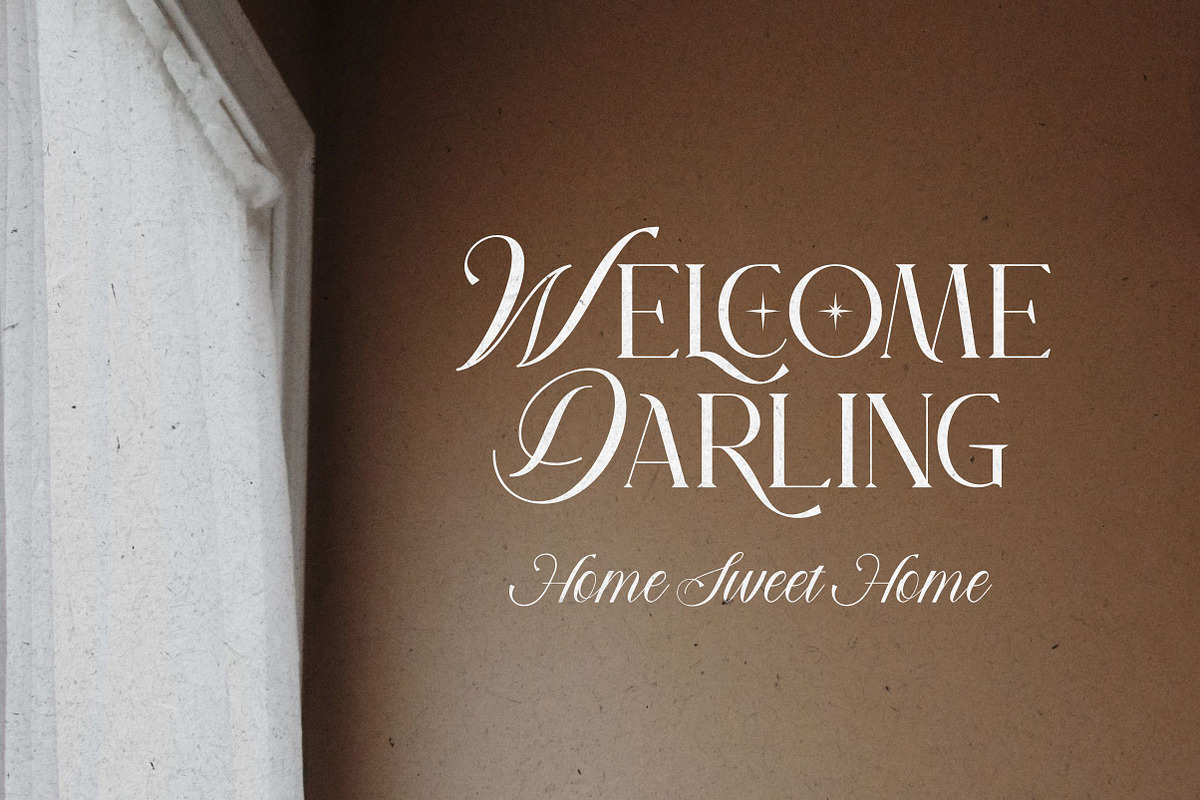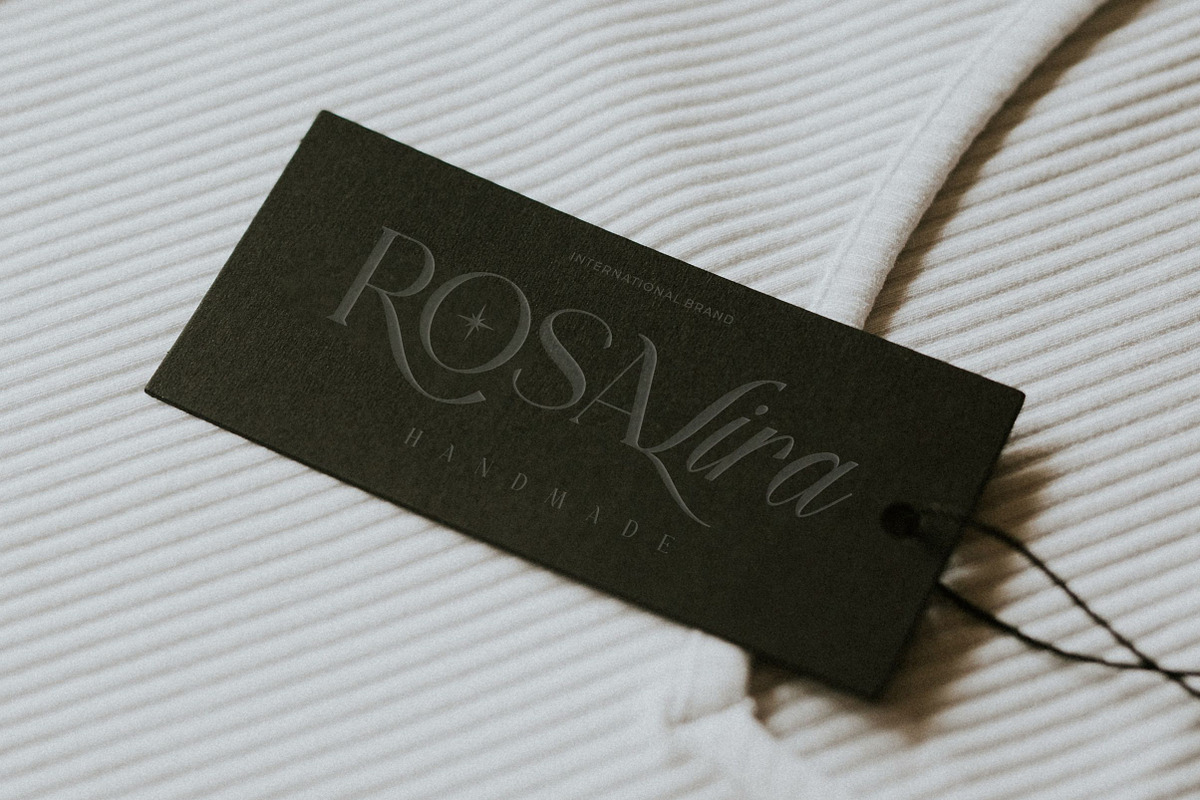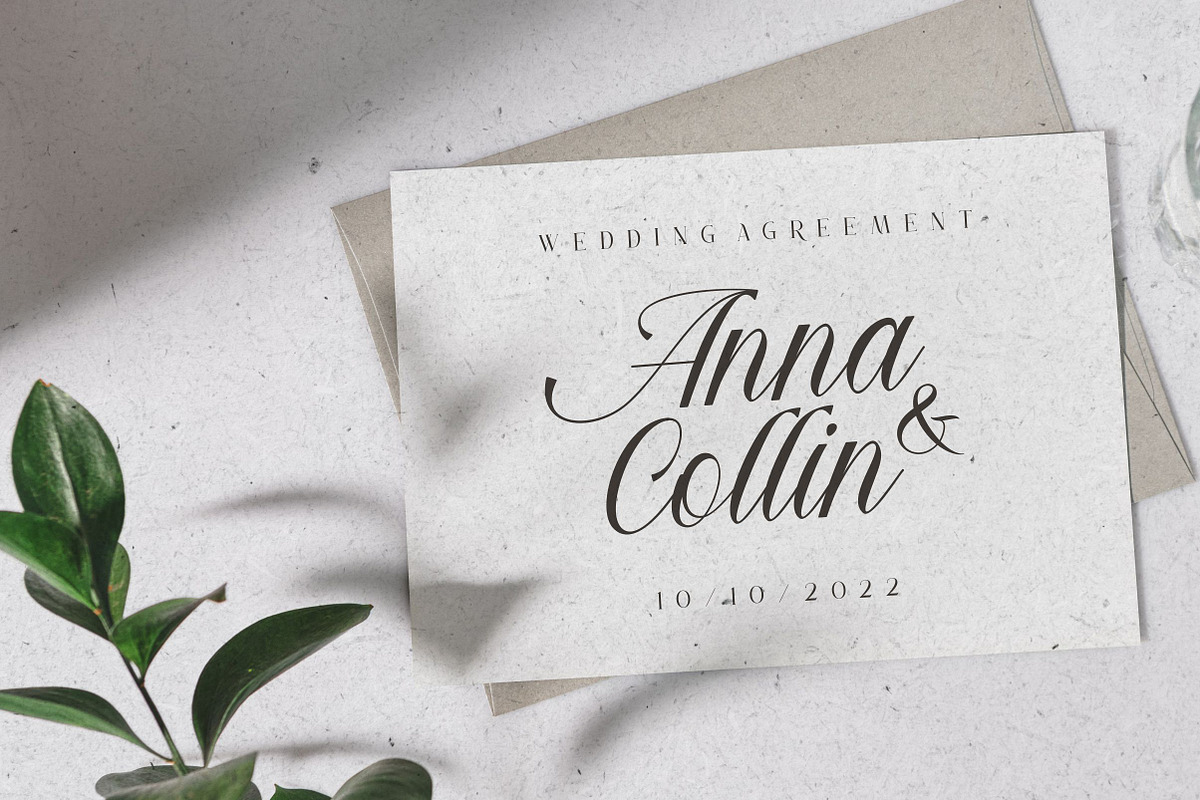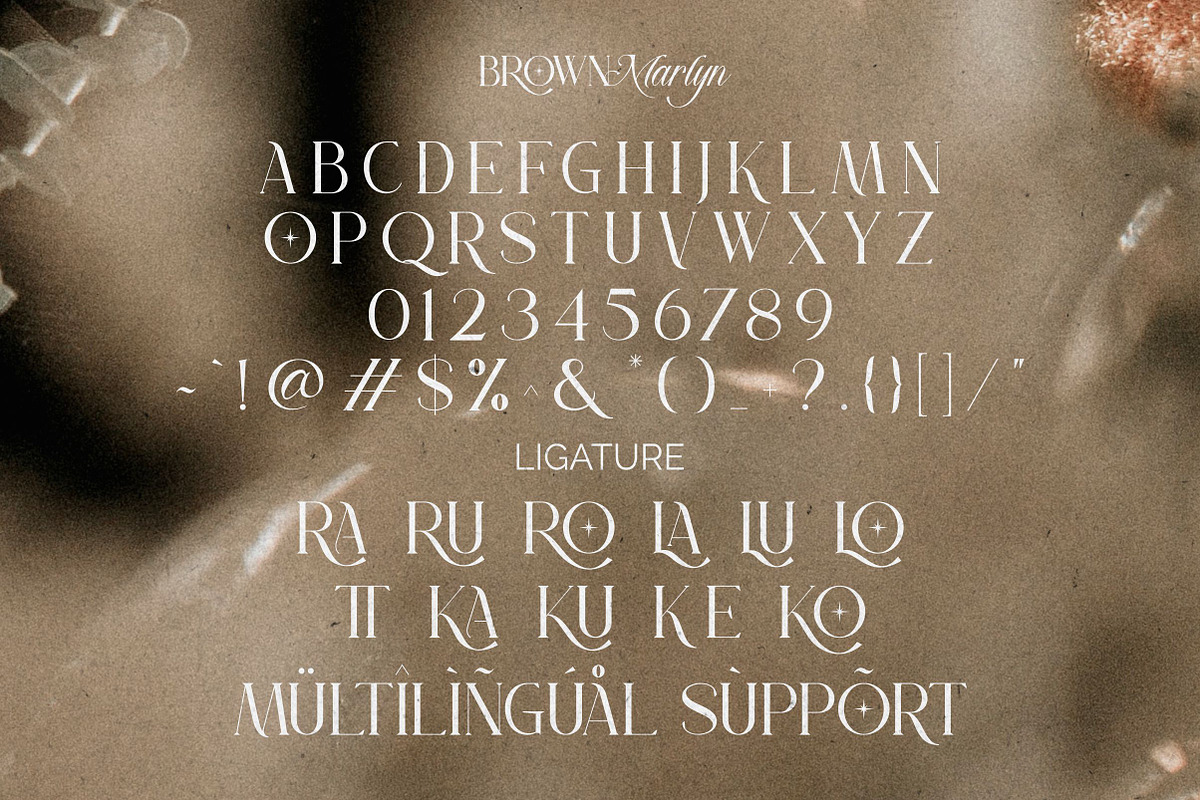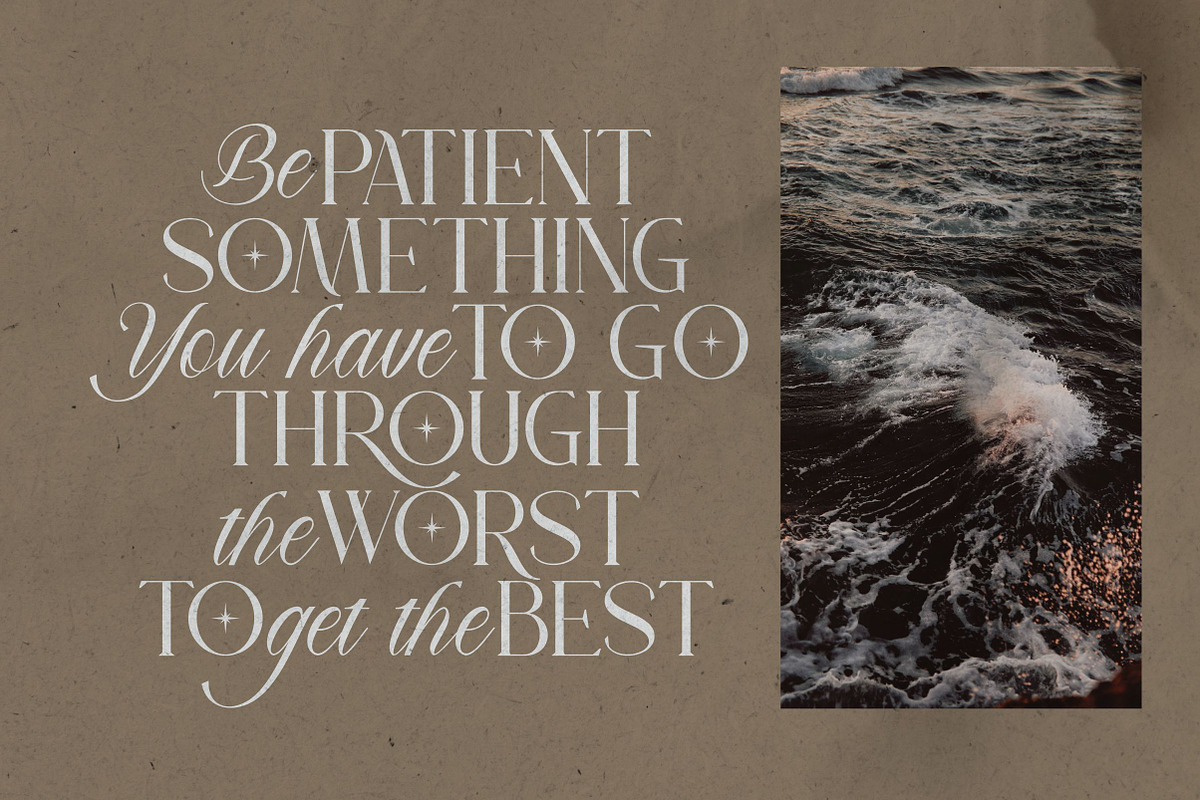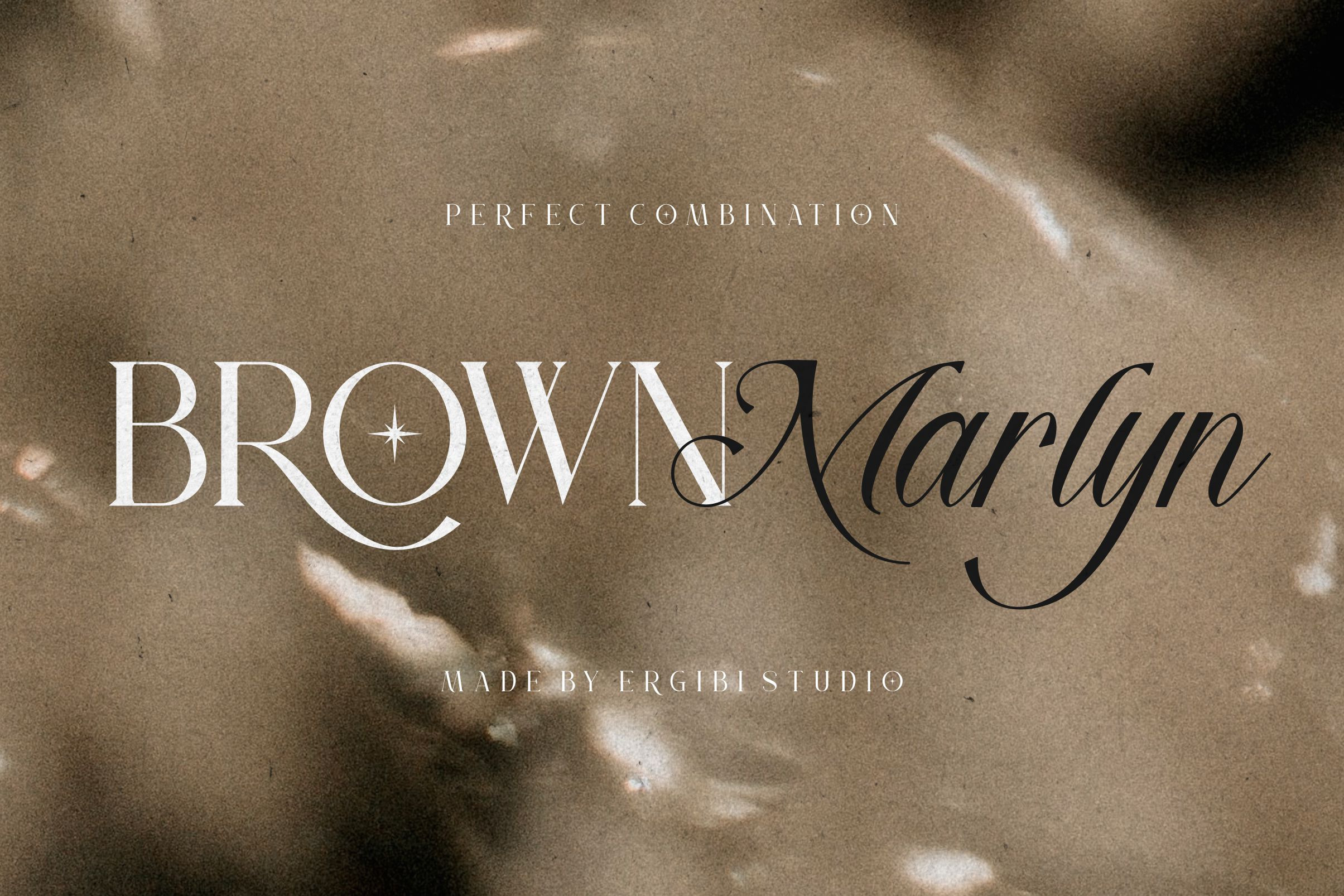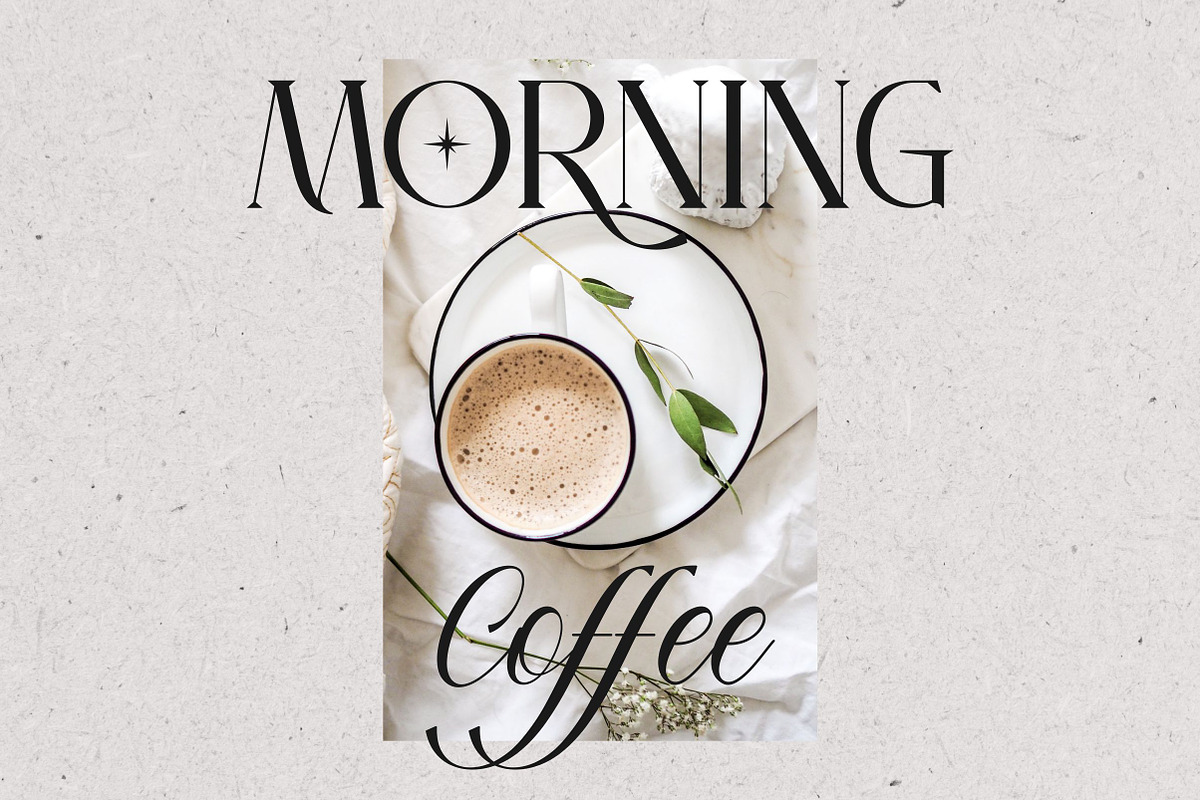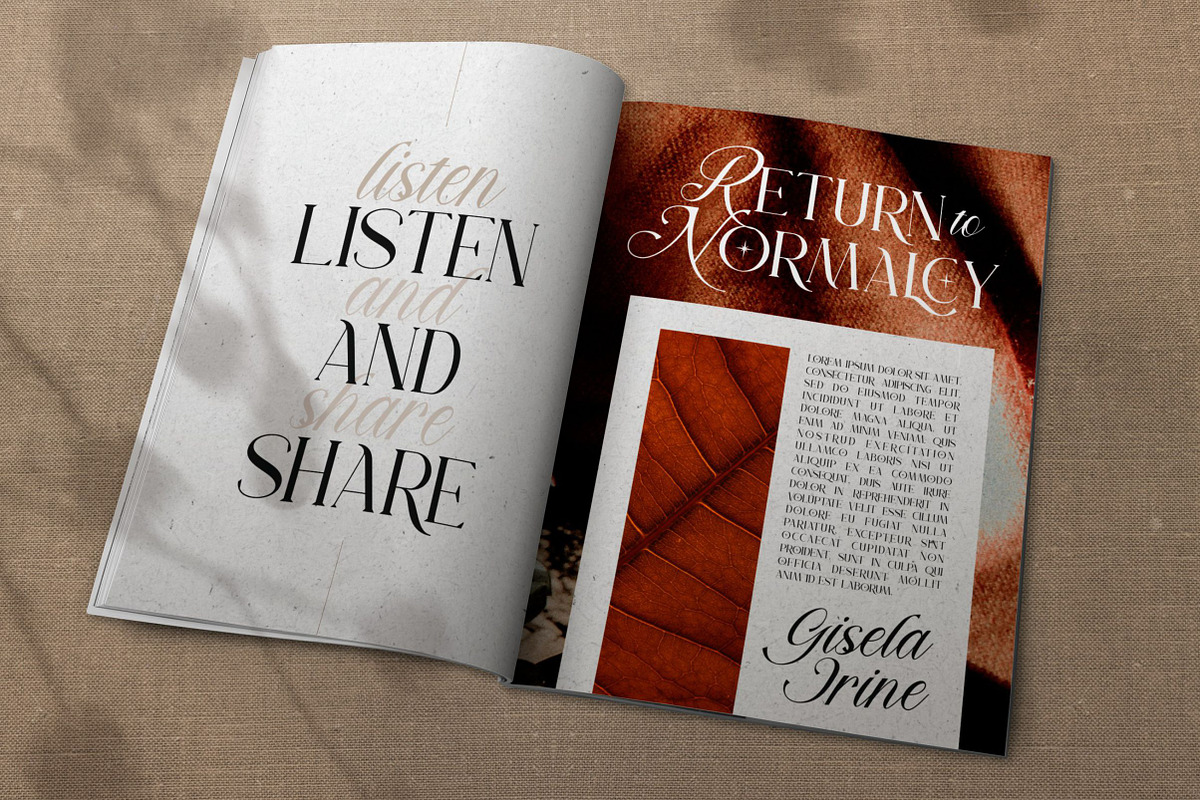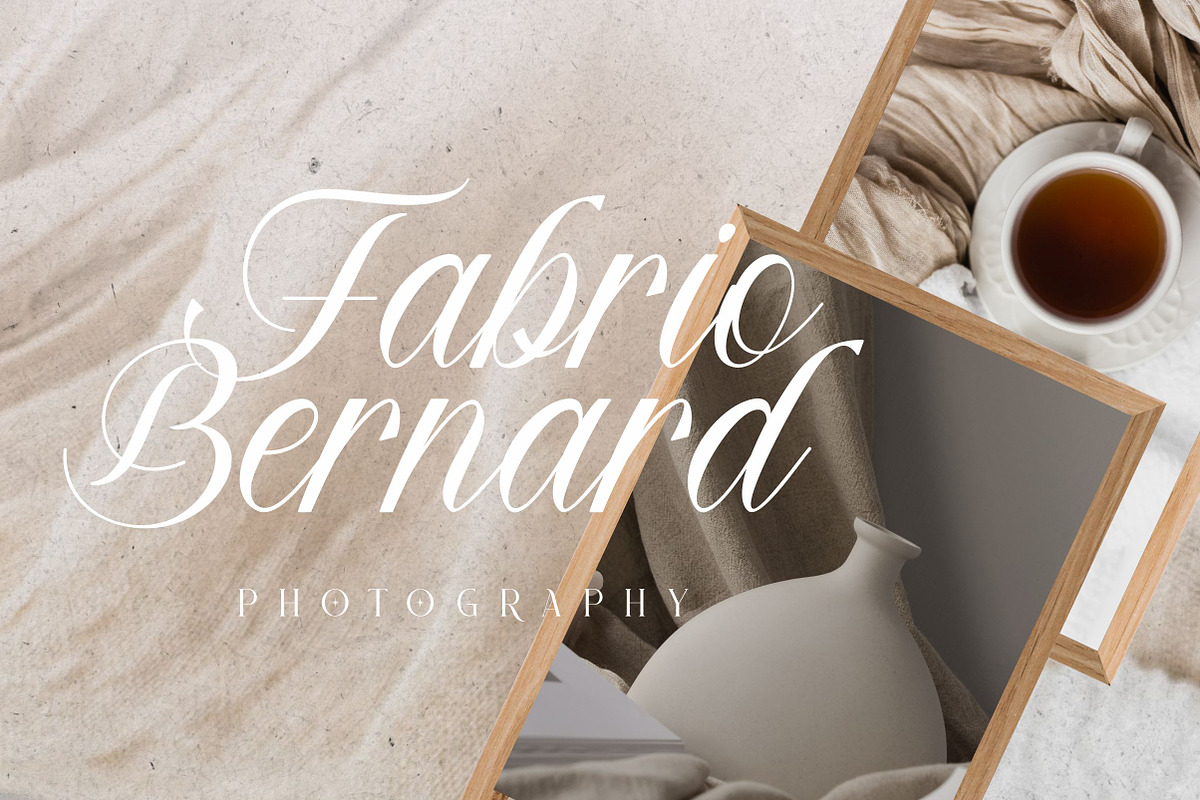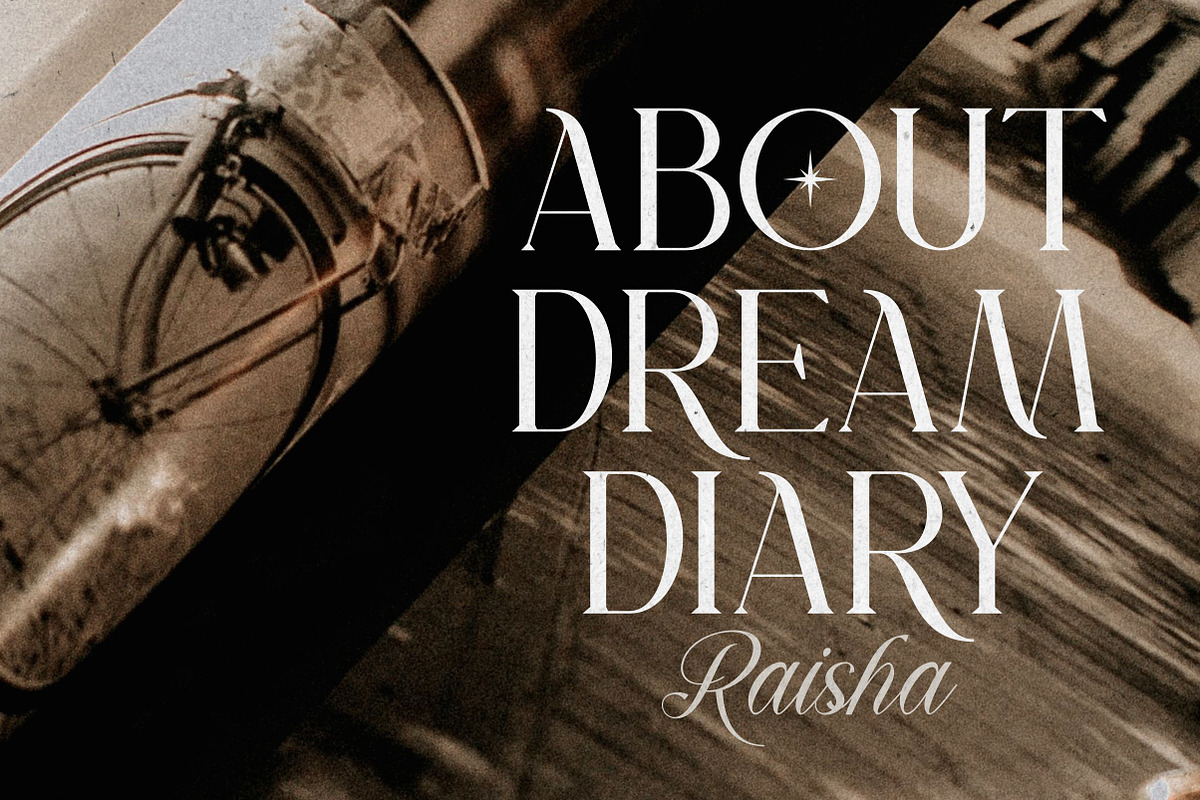
Brown Marlyn - Font Duo
This is the perfect combination of fonts, we are proud to introduce BROWN MARLYN, these fonts are of two types serif and script. Display Serif inspired by famous logo, This typeface has been made carefully to make sure its premium quality and luxury feel. The ligatures on serif makes this typeface unique and stands out rather than the regular serif font, perfectly for headlines, wedding, social media, logos, posters, packaging, T-shirts,coffee shops, restaurants, magazine’s headers, signs or gift/post cards,cafe’s and weddings or any type of advertising purpose.